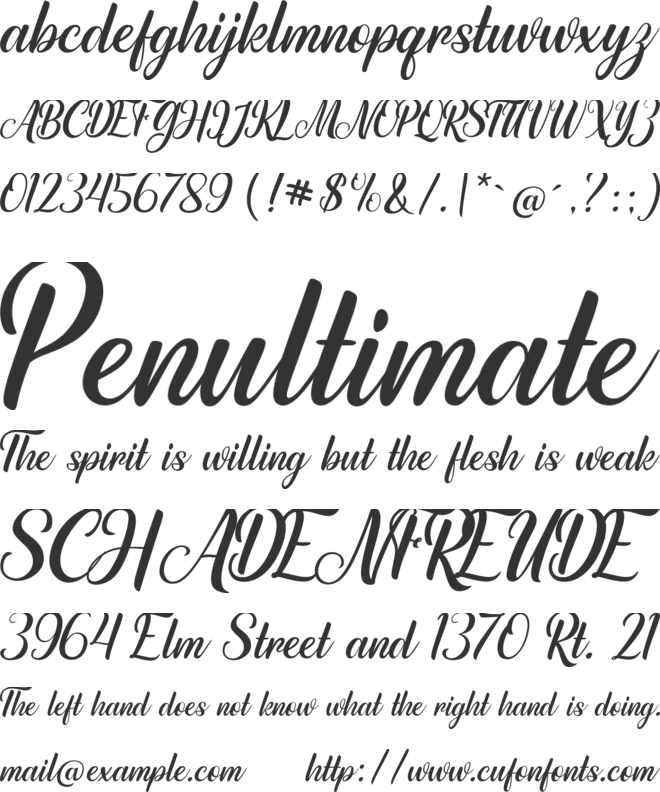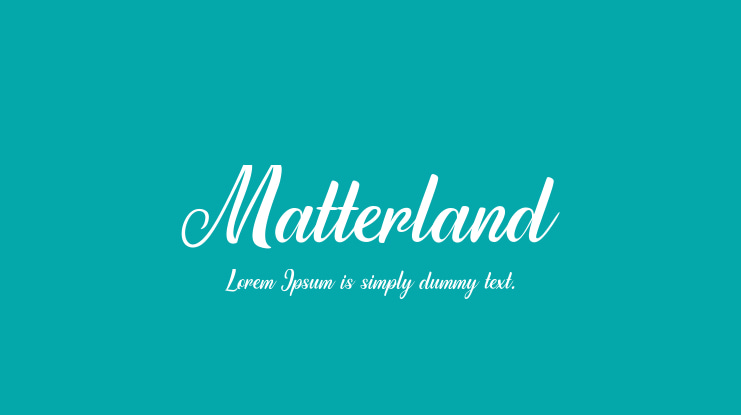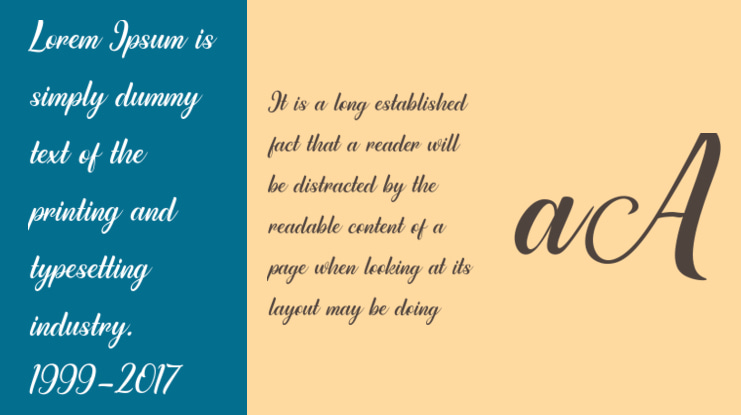
Matterland Font
Matterland is an enchanting handwritten font. This versatile script font has a wide spectrum of applications ranging from greeting cards to headlines and is guaranteed to add a romantic feel to your next project.